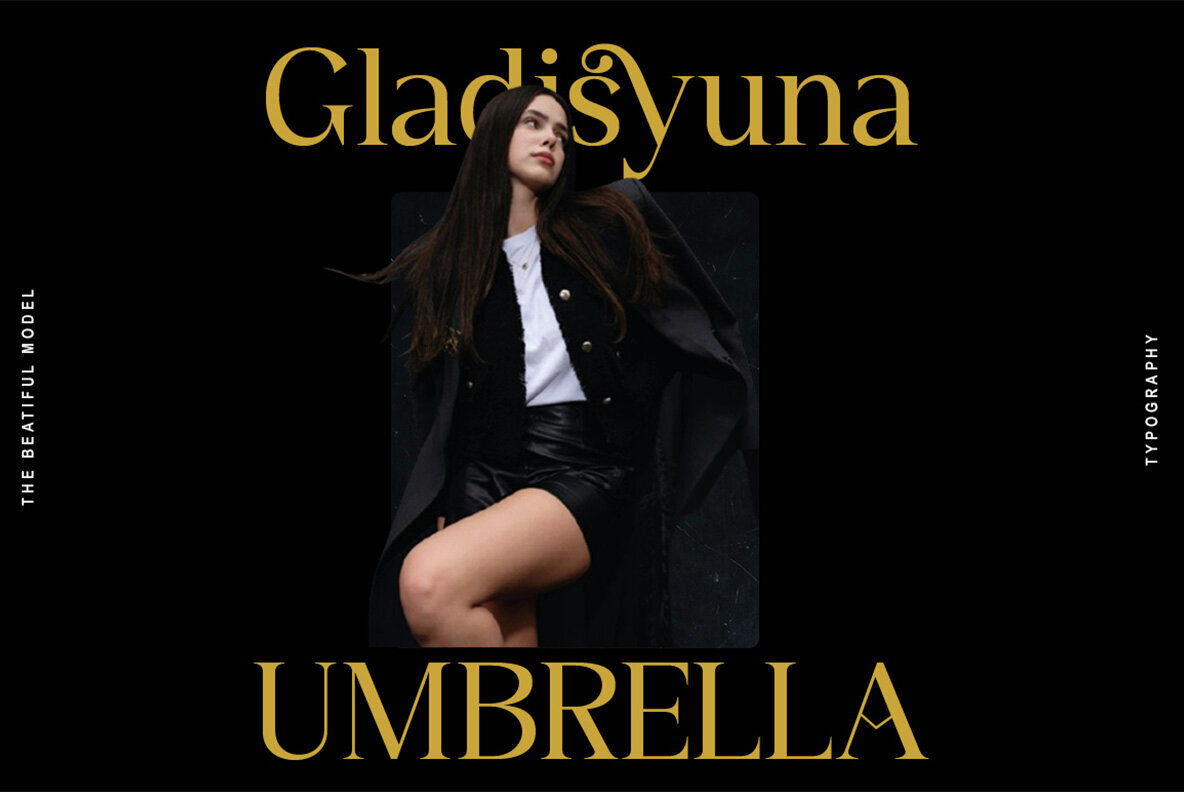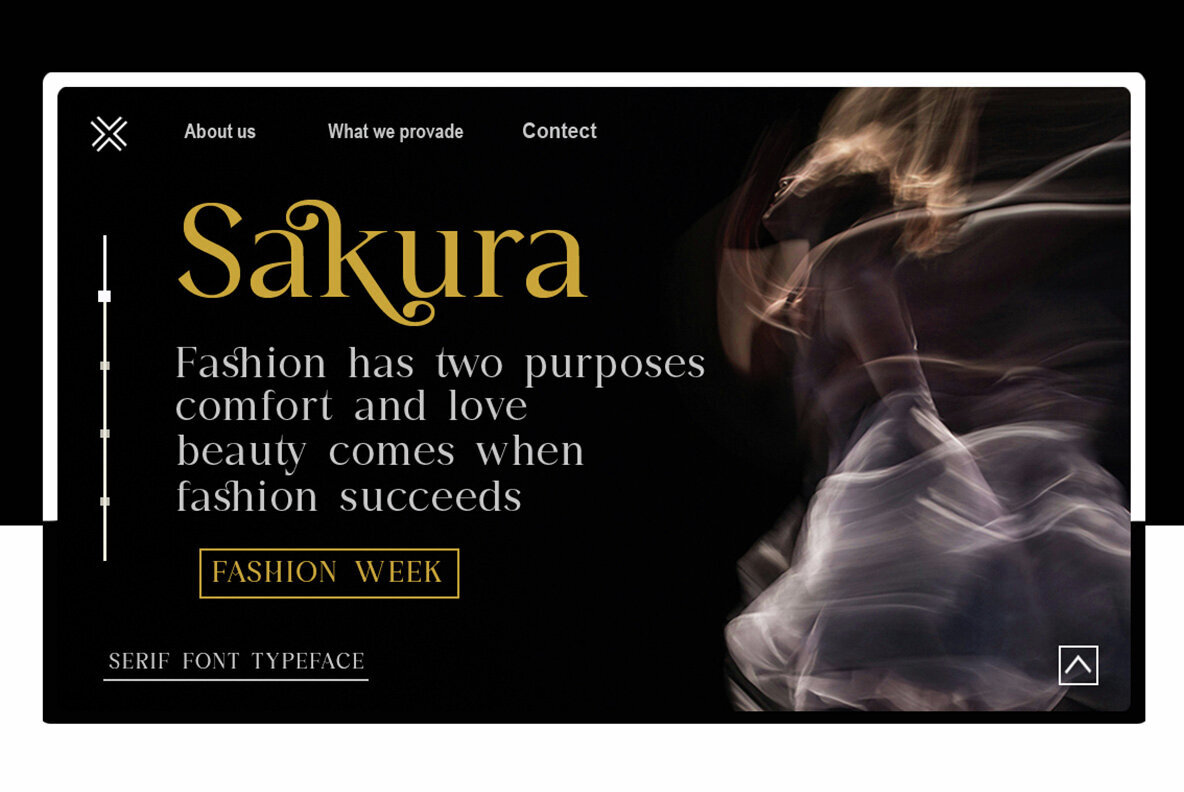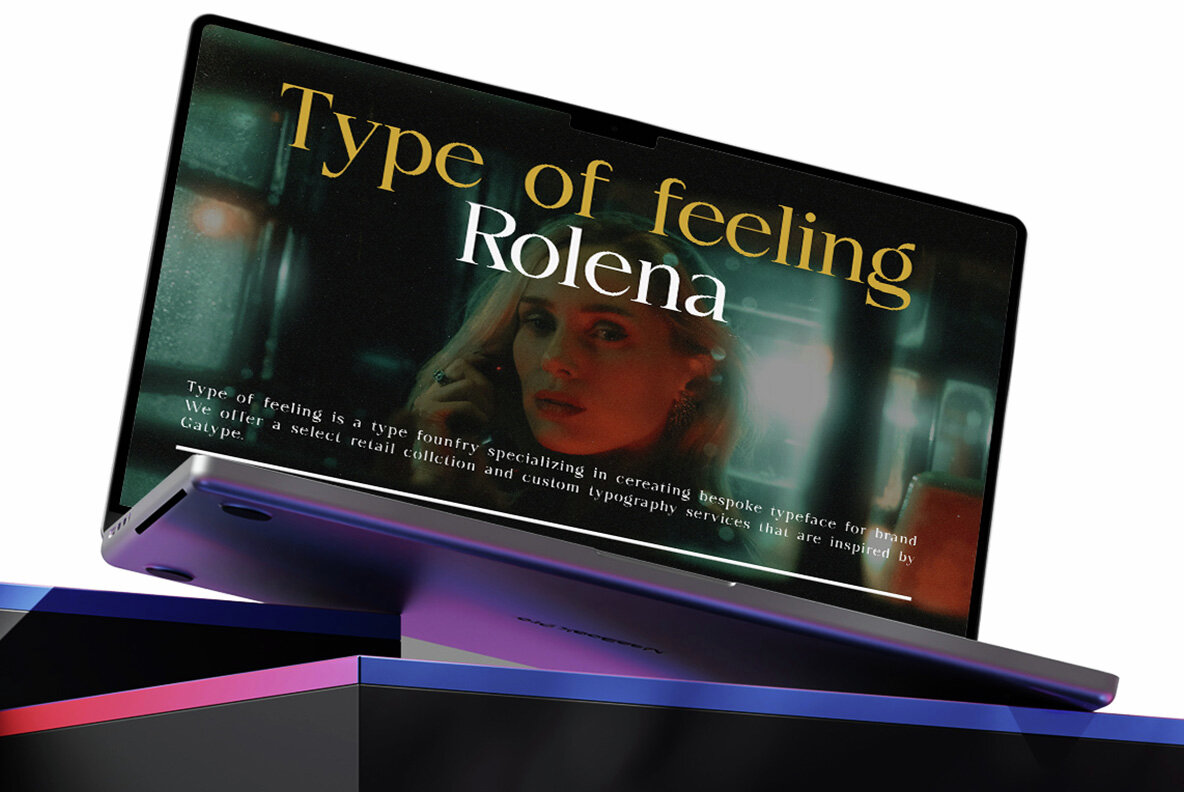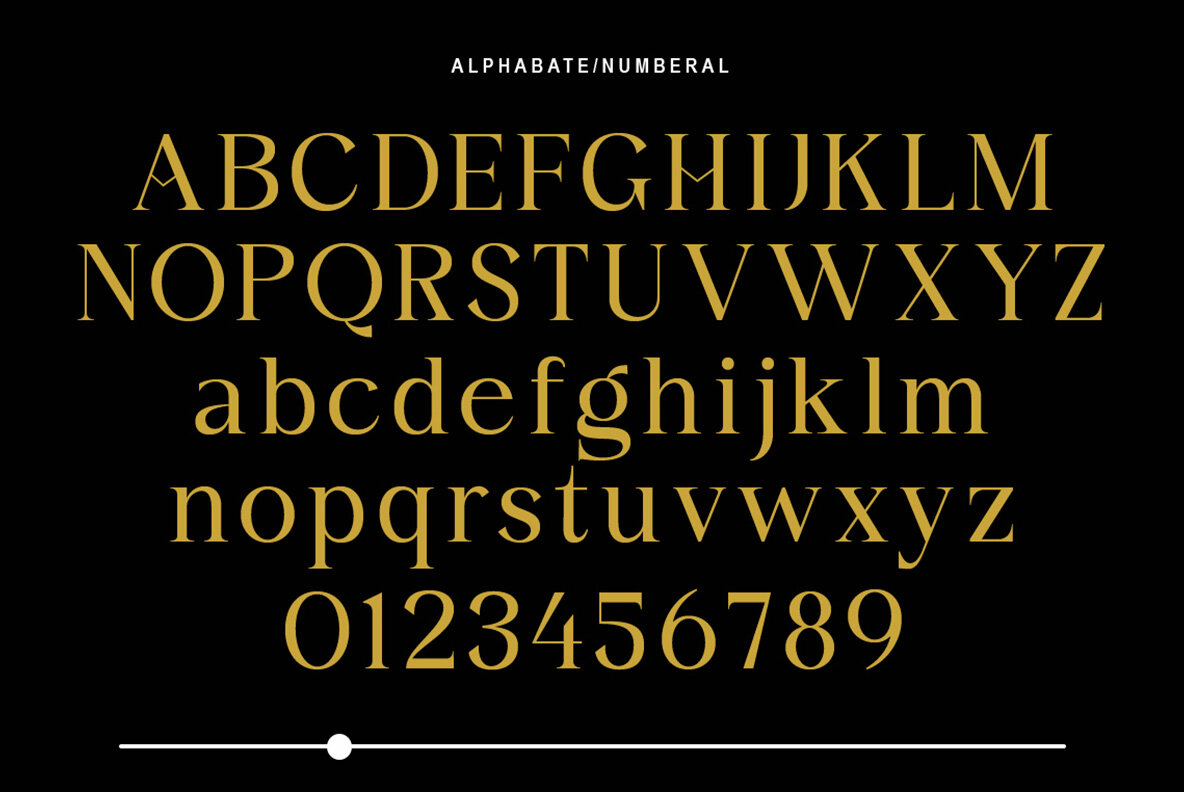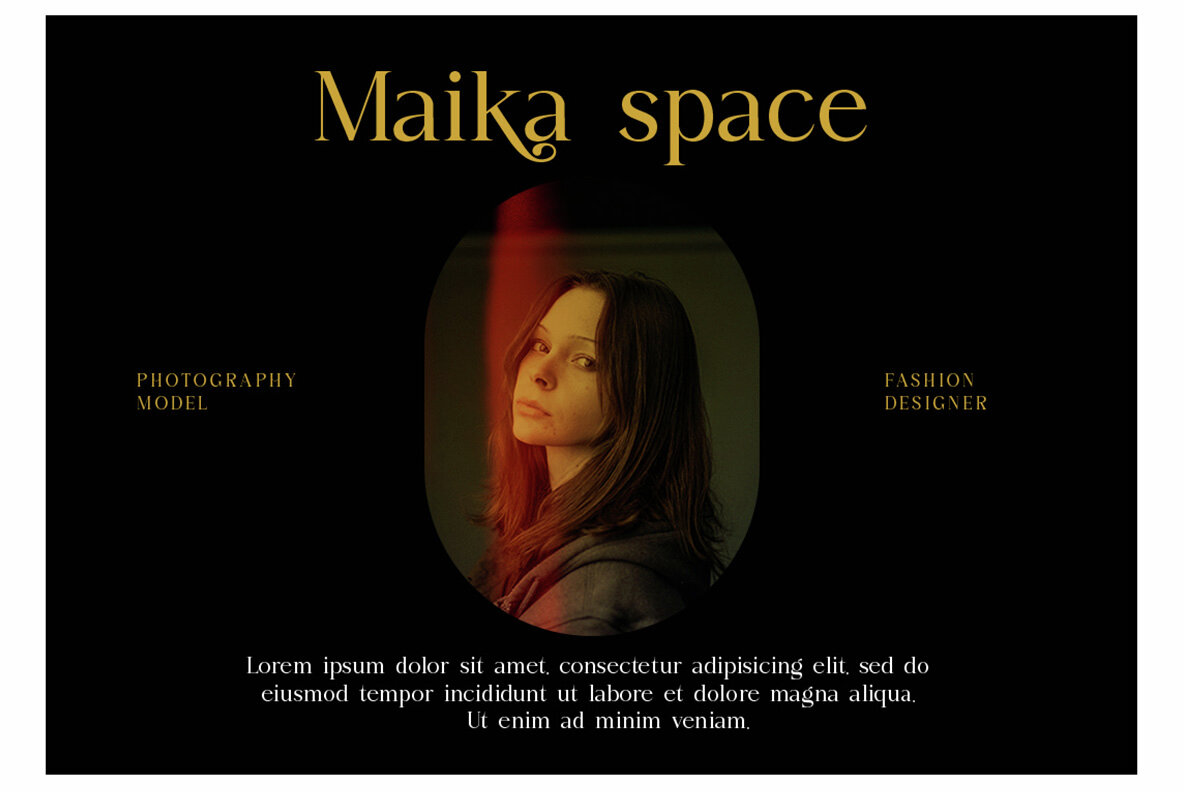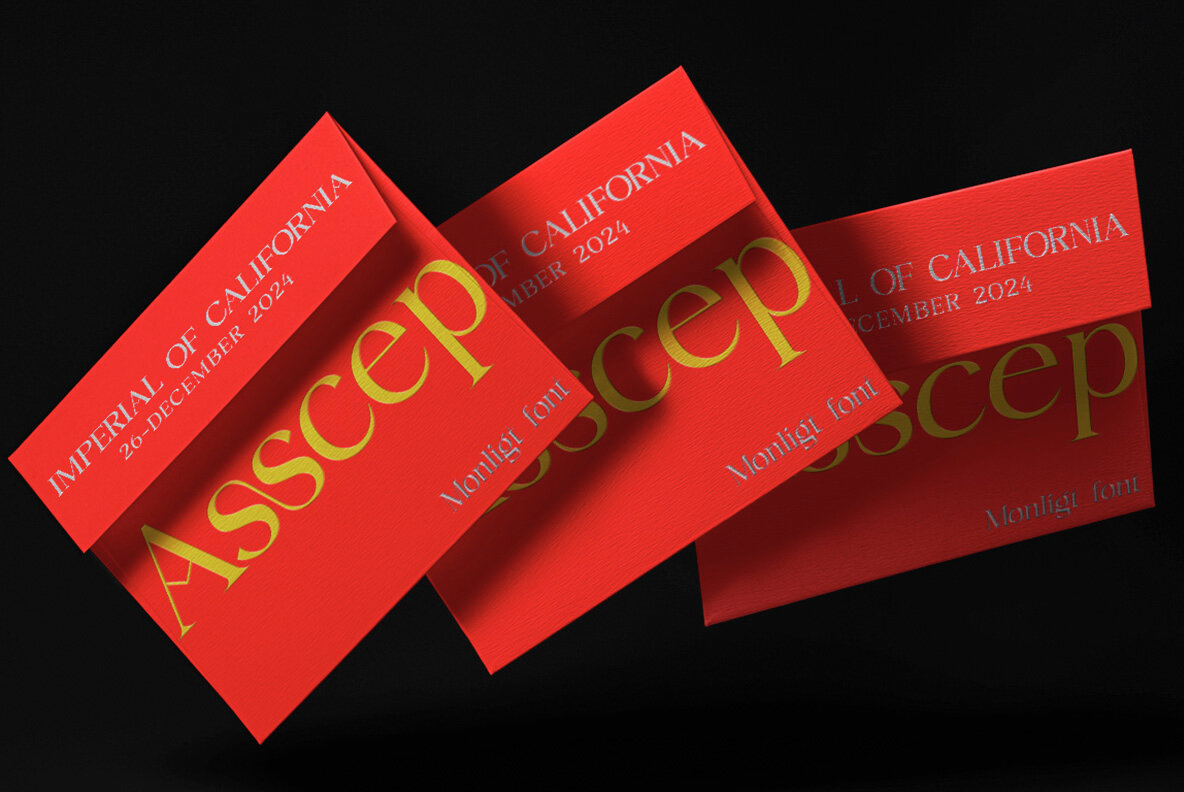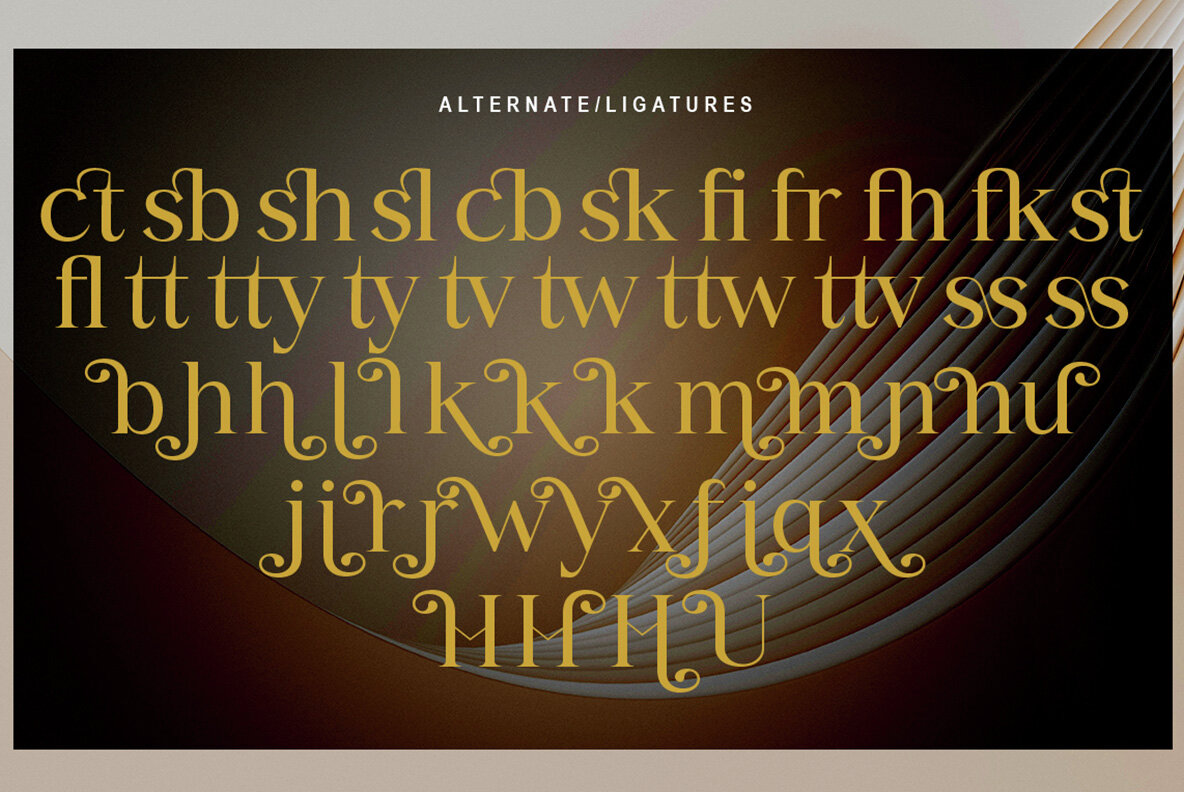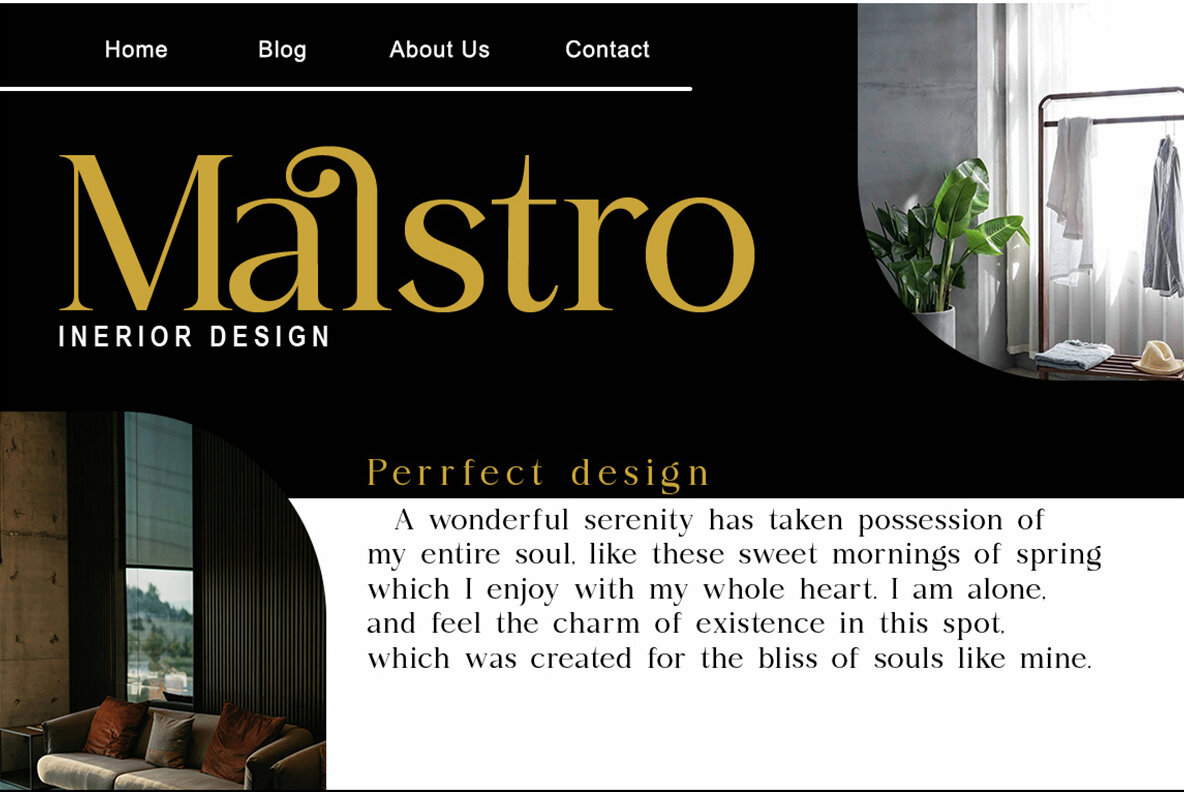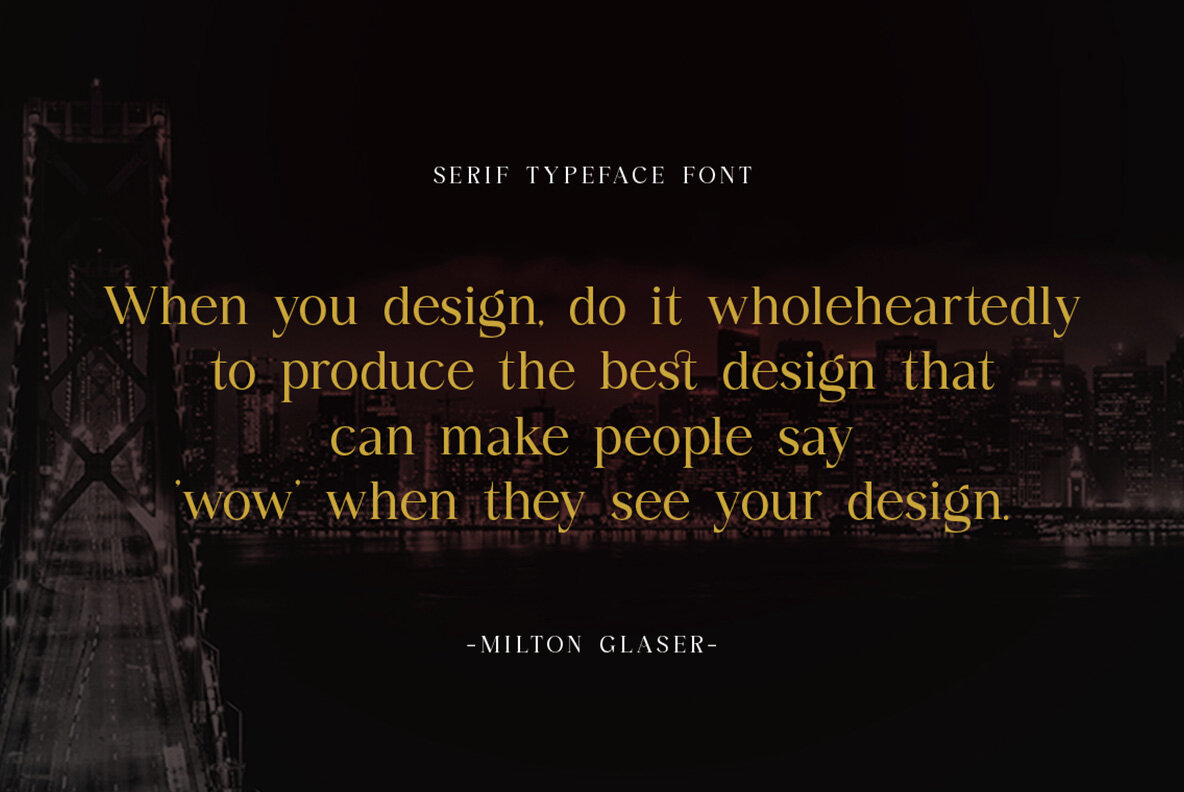
Monlight Font
Monlight Regular
Monlight is a robust slab serif font that features bold, clean, and substantial shapes. This typeface is carefully crafted to deliver a sense of order and harmony, perfect for projects requiring a strong and cohesive presence.
Ideal for Instagram posts, posters, web design, magazines, logos, or product branding, Monlight provides a commanding visual impact. Its design ensures clarity and attention, making it suitable for both digital and print applications. Embrace Monlight to bring structure and authority to your creative projects.